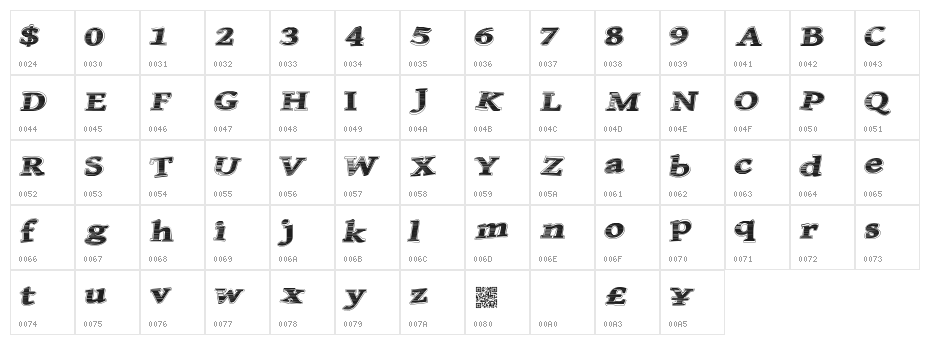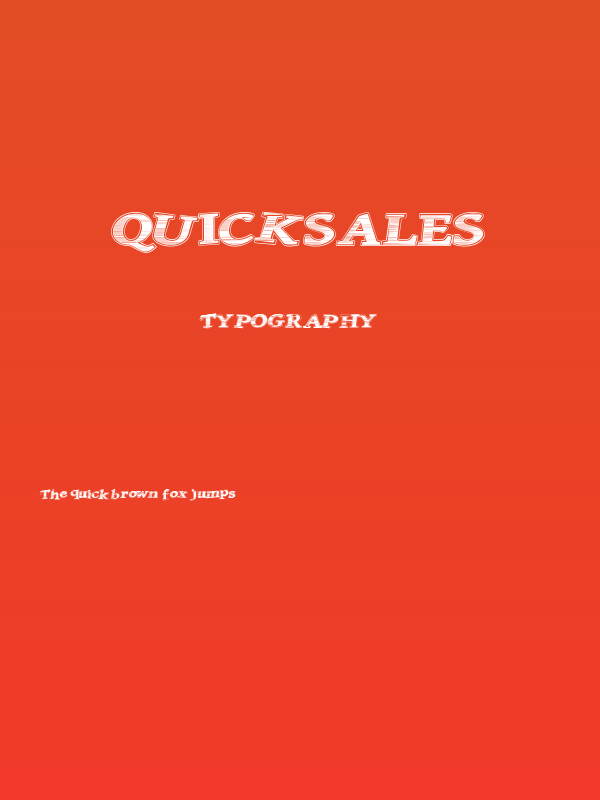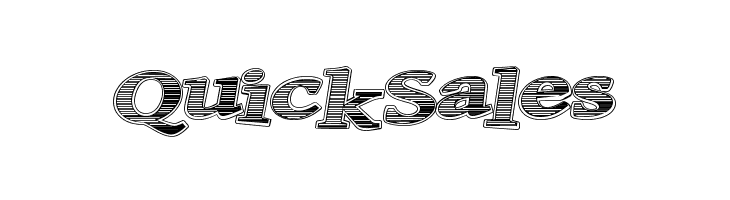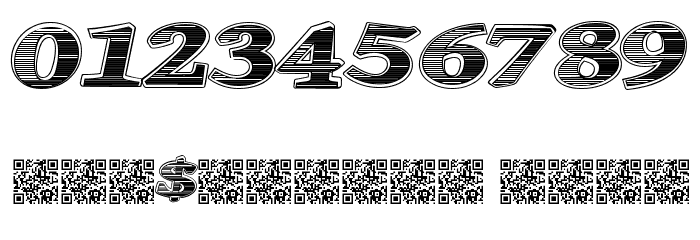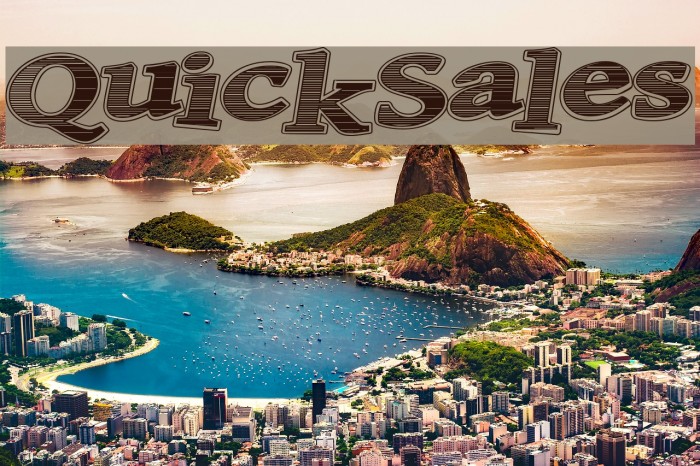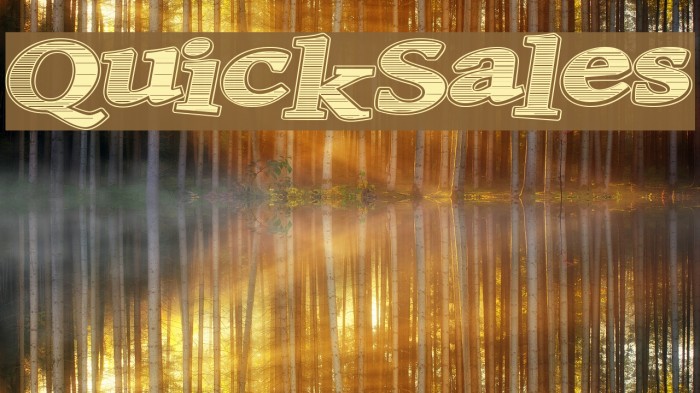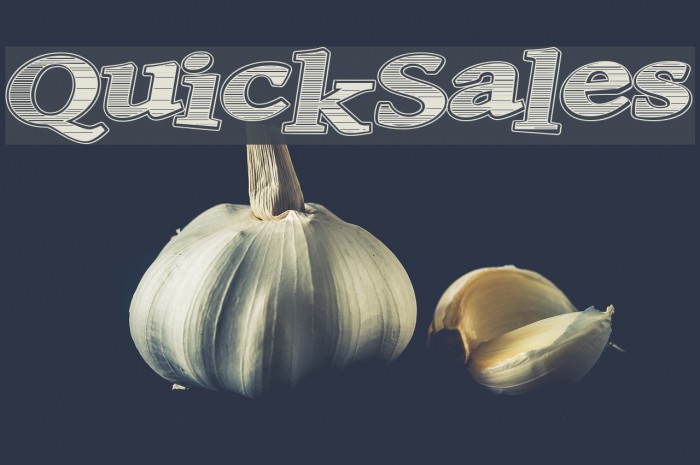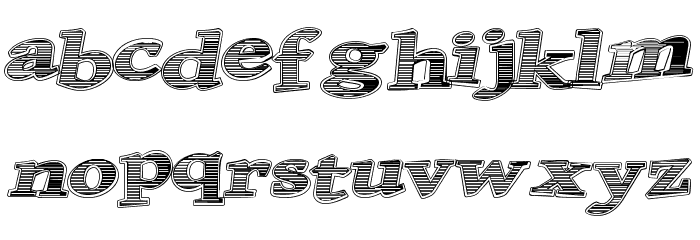
QuickSales Font
QuickSales Description
This font features a bold and decorative style with a three-dimensional effect created by parallel lines running through each character. The uppercase and lowercase letters maintain a consistent design, with the uppercase being slightly more pronounced. The numerals and special characters follow the same stylistic approach, ensuring uniformity across all elements. The font's unique design makes it stand out, suitable for eye-catching displays and creative projects. The intricate detailing within each character adds depth and a sense of movement, making it ideal for dynamic and engaging visual presentations.
| Proposed Projects | Ideal for posters, headlines, branding, and any project requiring a striking visual impact. |